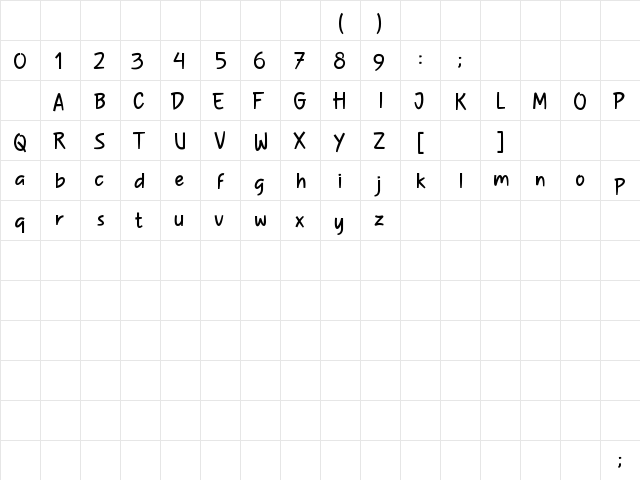
Complete Xurabi Ema 1.0 Regular glyph index. Displaying only characters natively supported by Xurabi Ema 1.0 Regular font.
Xurabi Ema 1.0 is a composed and adaptable typeface that performs quietly and consistently across a wide range of design contexts.